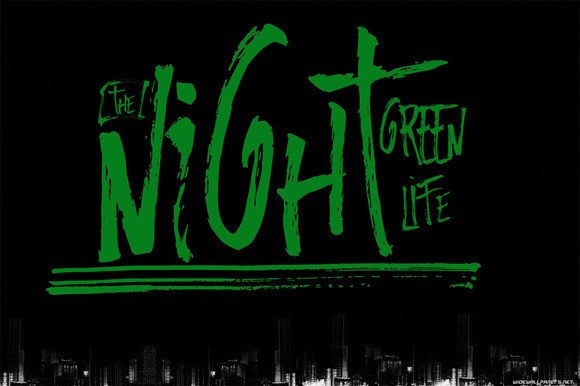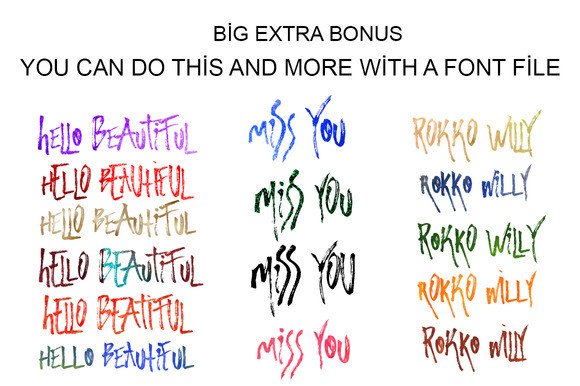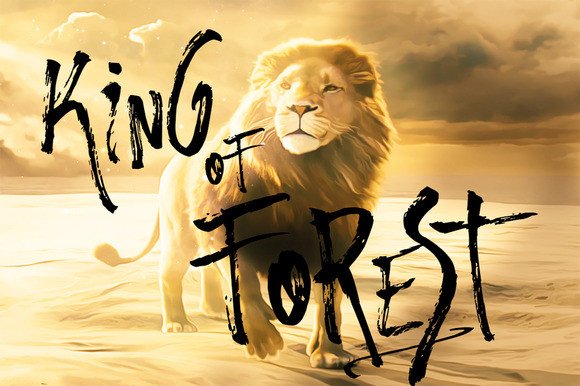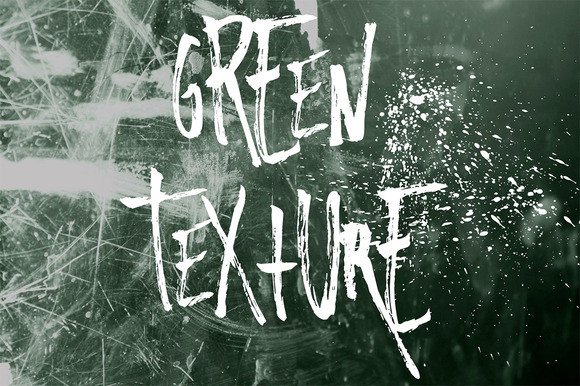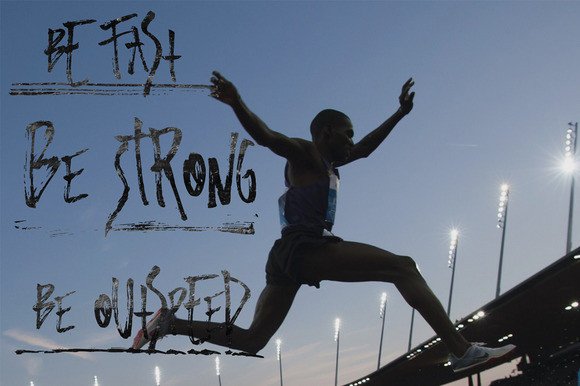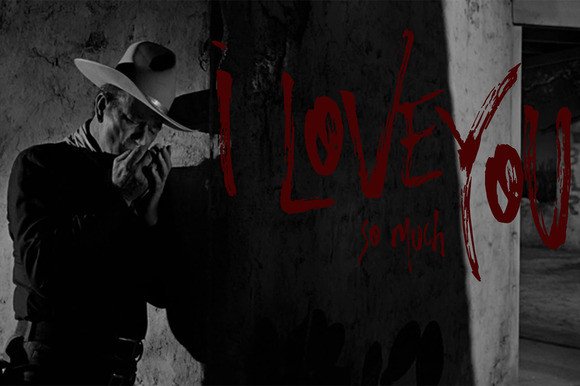
Discover the Unique Charm of Amsterdam Font: Elevate Your Designs with a Personal Touch
In the world of typography, few fonts manage to capture the essence of creativity and individuality as effectively as the Amsterdam Font. This rough, yet charming typeface has been making waves among designers and crafters alike, offering a refreshing alternative to more conventional fonts. With its unique texture and versatile design, Amsterdam Font presents endless possibilities for creative projects, from logo marks and posters to T-shirt designs and beyond.
The Distinctive Character of Amsterdam Font
Amsterdam Font stands out due to its distinctive, rough texture that lends a personal and handmade feel to any design. Unlike polished, digital fonts that often lack character, Amsterdam Font brings a sense of authenticity and warmth, reminiscent of hand-drawn typography. This quality makes it particularly well-suited for projects that aim to convey a sense of craftsmanship, individuality, or a personal touch.
One of the key advantages of Amsterdam Font is its versatility. Its design is robust and adaptable, making it suitable for a wide range of applications. Here are a few ideas to get you started:
- Logo Marks: The unique character of Amsterdam Font makes it an excellent choice for logo design. It can help a brand stand out by providing a distinctive and memorable visual identity.
- Posters: Whether you’re designing a poster for a concert, a sale, or an event, Amsterdam Font can add a compelling, eye-catching element to your work.
- T-Shirt Designs: For crafters and designers looking to create custom apparel, Amsterdam Font offers a stylish and comfortable option that translates well onto fabric.
- Social Media Graphics: Elevate your social media presence with custom graphics that showcase your personality or brand’s character.
- Invitations and Stationery: Add a personal touch to invitations, greeting cards, and other stationery items with this charming font.
Why Choose Amsterdam Font?
There are several reasons why Amsterdam Font has become a go-to choice for designers and crafters:
- Unique Aesthetic: In a sea of generic fonts, Amsterdam Font offers a breath of fresh air with its distinctive texture and style.
- Easy to Read: Despite its rough appearance, Amsterdam Font is surprisingly legible, making it suitable for both headlines and body text.
- Highly Customizable: The font’s design allows for easy customization, enabling you to adapt it to fit your project’s specific needs.
Tips for Using Amsterdam Font Effectively
To make the most of Amsterdam Font, consider the following tips:
- Pair with Complementary Fonts: Combine Amsterdam Font with smoother, more traditional fonts to create visual interest and hierarchy in your designs.
- Experiment with Colors: The rough texture of Amsterdam Font lends itself well to bold, vibrant colors that can enhance its rustic charm.
- Play with Texture: Don’t be afraid to overlay textures or adjust the font’s color to match the mood and theme of your project.
Amsterdam Font is more than just a typeface; it’s a tool for creative expression. Its unique blend of ruggedness and charm makes it an invaluable asset for designers and crafters looking to infuse their projects with a personal touch. Whether you’re creating logos, posters, T-shirt designs, or anything in between, Amsterdam Font offers a world of possibilities waiting to be explored. So, why settle for ordinary when you can make your designs truly extraordinary with Amsterdam Font?